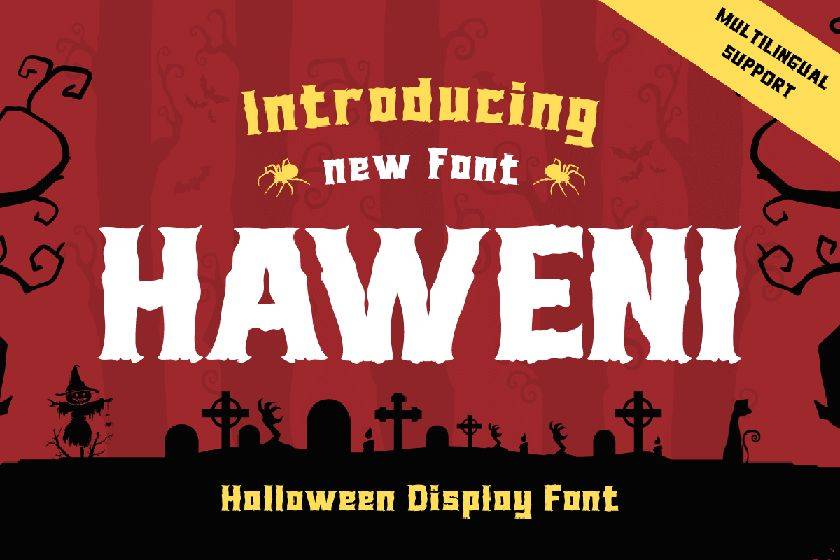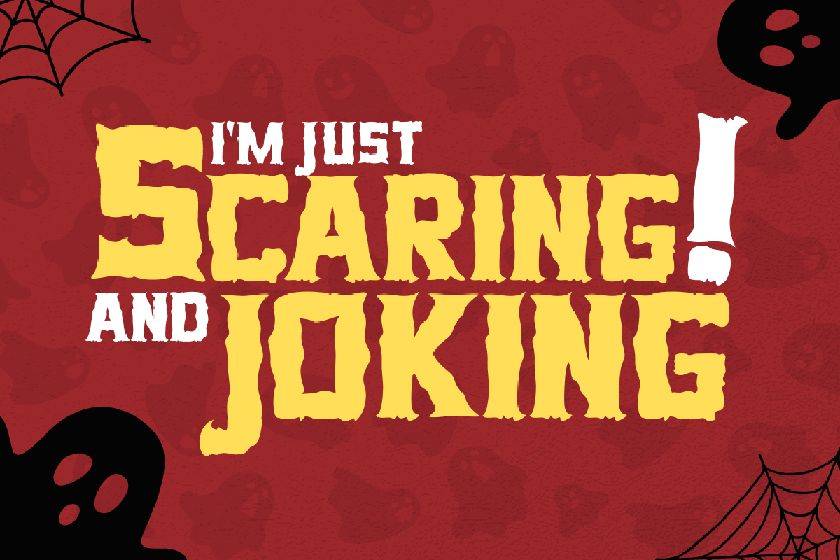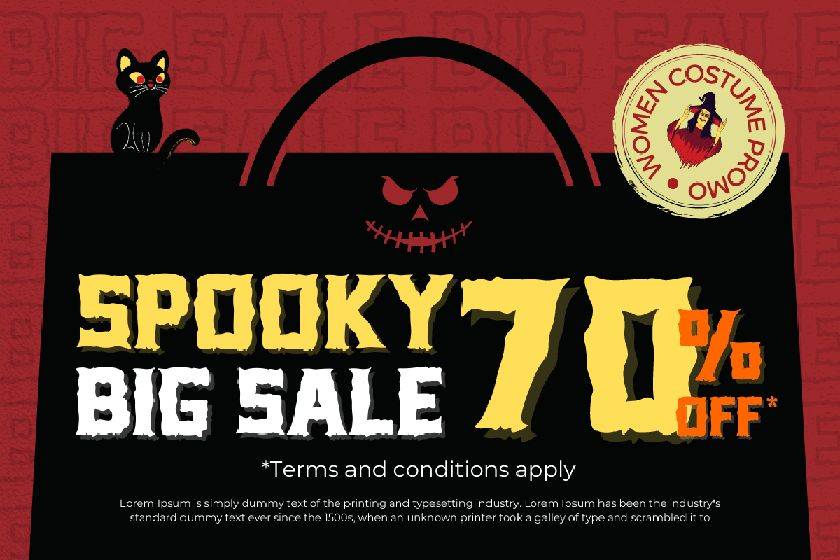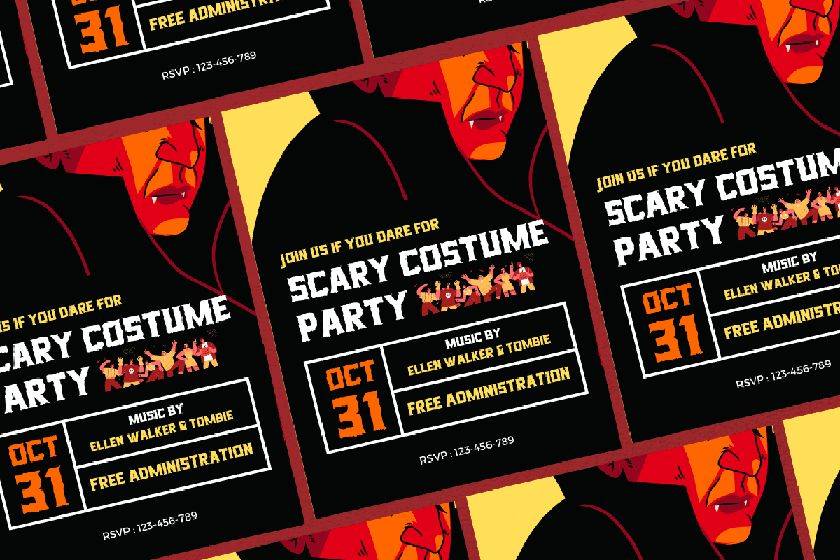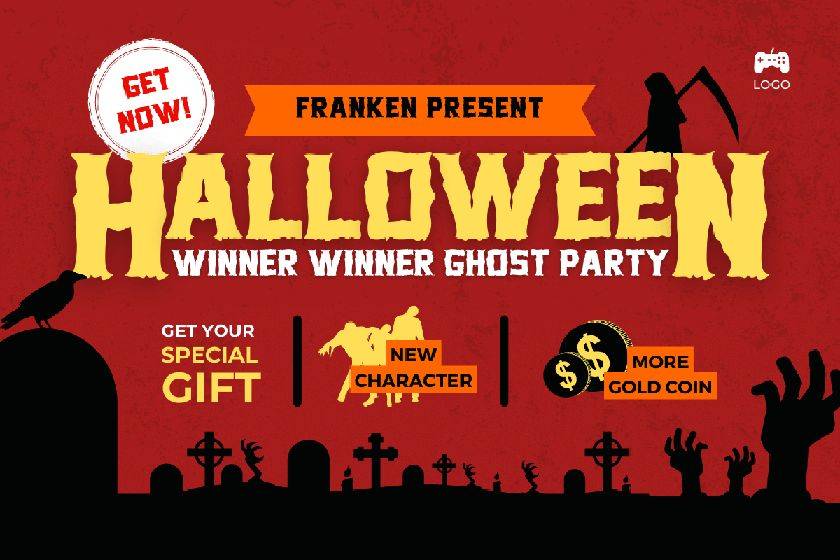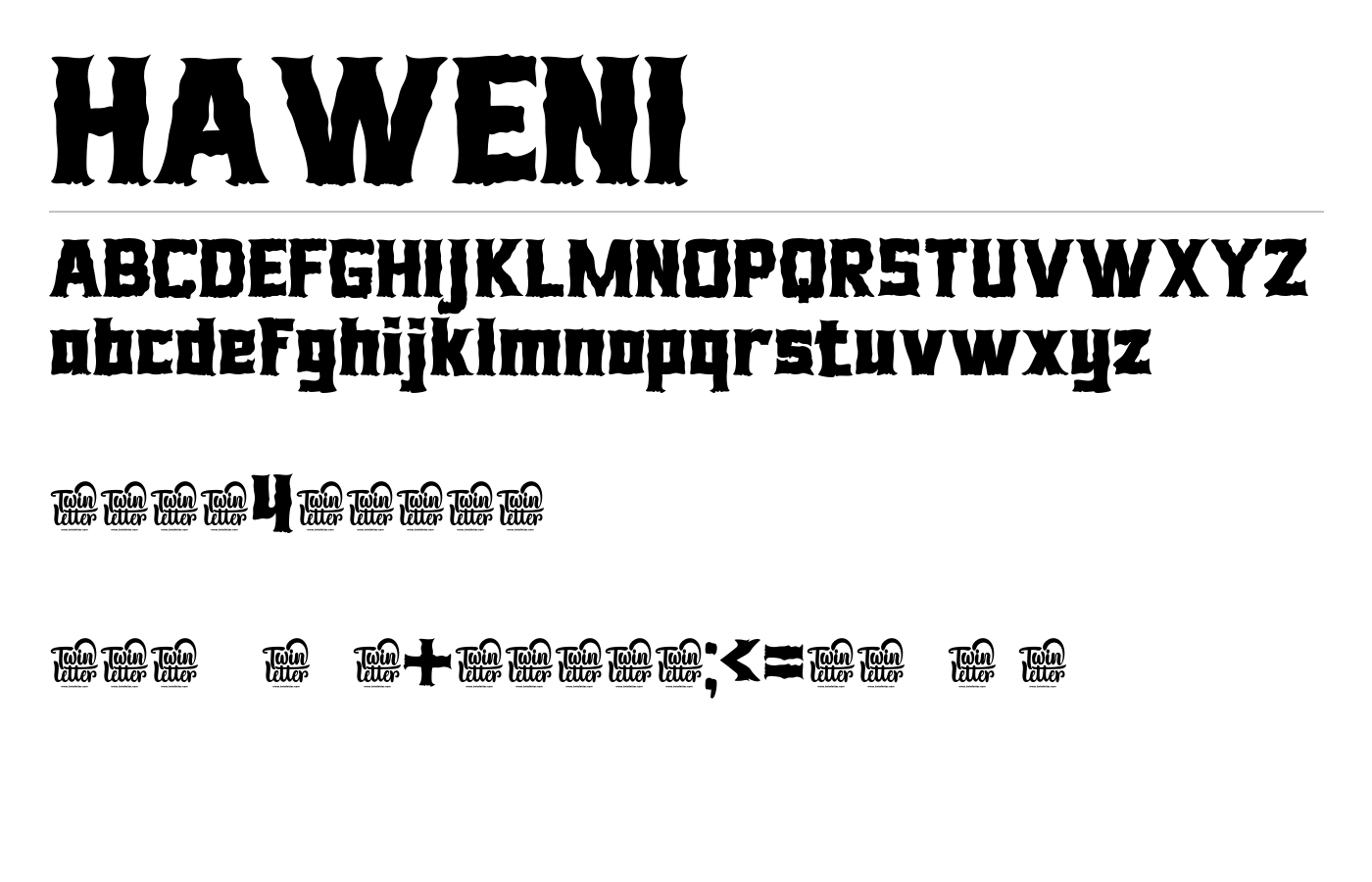
Haweni is a bold, decorative serif font with a strong, rugged personality, featuring thick, uneven strokes that give it a hand-carved, vintage feel. Its high contrast and unique, slightly distressed edges make it perfect for eye-catching headlines, posters, and branding that seek a bold, adventurous look with a touch of rustic charm. This font works well in designs aiming to convey strength and individuality, especially for creative and outdoor-themed projects.
Haweni Font
About Haweni Font